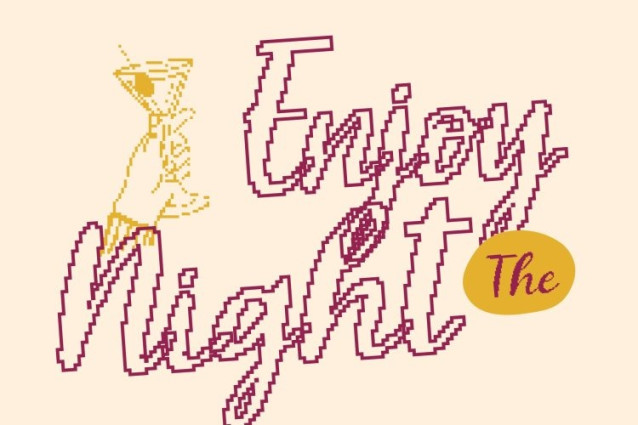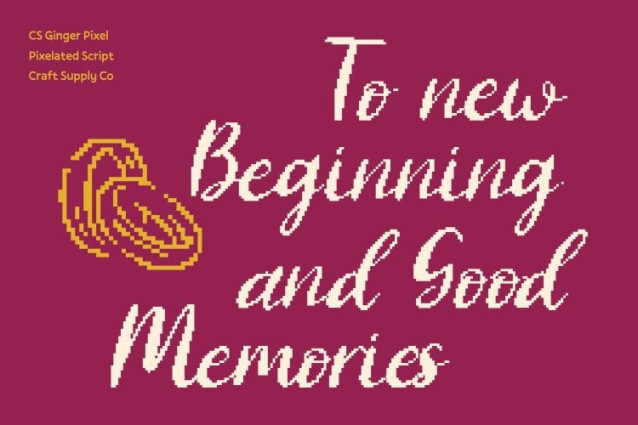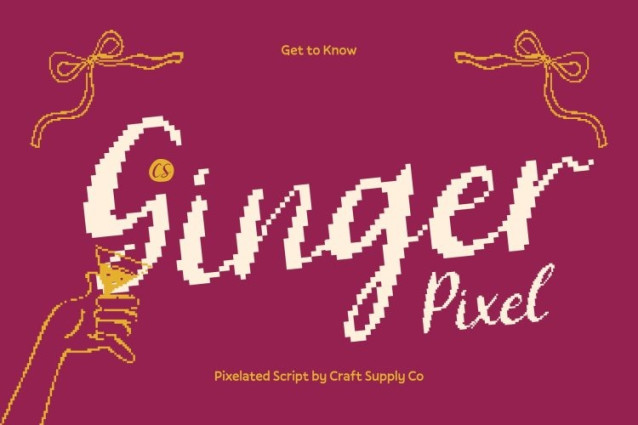
CS Ginger Pixel Font
CS Ginger Pixel Font This is a Mediterranean-inspired script font that captures the warmth, brightness, and relaxed rhythm of coastal life, refined with subtle pixel precision. Inspired by sunlit shores, gentle sea breezes, and carefree summer days, it delivers a friendly, inviting handwritten style that feels authentic and approachable. Flowing strokes and natural movement create a casual, modern Mediterranean aesthetic.
Soft Pixel Curves with Sunny Personality
Letterforms feature smooth curves and balanced connections, reflecting a laid-back Mediterranean atmosphere. Each character flows naturally, creating a harmonious rhythm enhanced by delicate pixel detail. This sunny personality adds joy, optimism, and warmth to any design while remaining legible and visually engaging across digital and print media.
Relaxed Style for Expressive, Lifestyle Storytelling
With its effortless, flowing script, this font is perfect for expressive, lifestyle-focused designs. Its casual elegance communicates personal experiences, nature, and coastal culture. The subtle pixel refinement adds a modern digital touch, helping the font feel contemporary while retaining its handcrafted charm.
Perfect for Branding, Posters, and Travel-Inspired Projects
This font excels in branding, posters, travel-themed visuals, packaging, and social media content. Its Mediterranean charm makes it ideal for tourism brands, cafés, summer events, beachwear labels, and destination promotions, bringing a relaxed, sunny, and digitally polished warmth to every project.